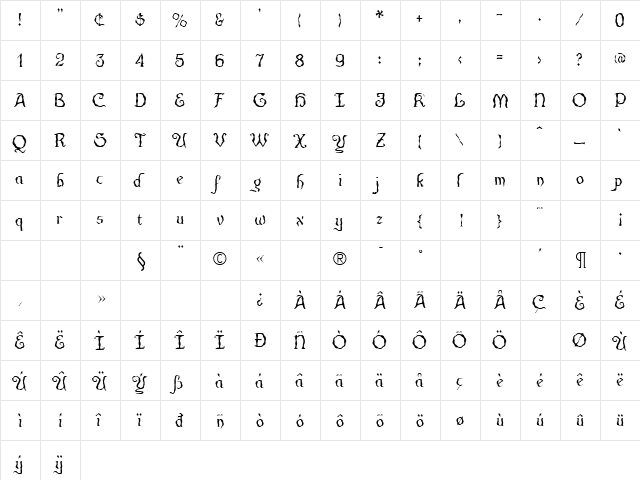
CuthbeNick Regular
Design Context for CuthbeNick Typeface
CuthbeNick is a composed and adaptable typeface that performs quietly and consistently across a wide range of design contexts.